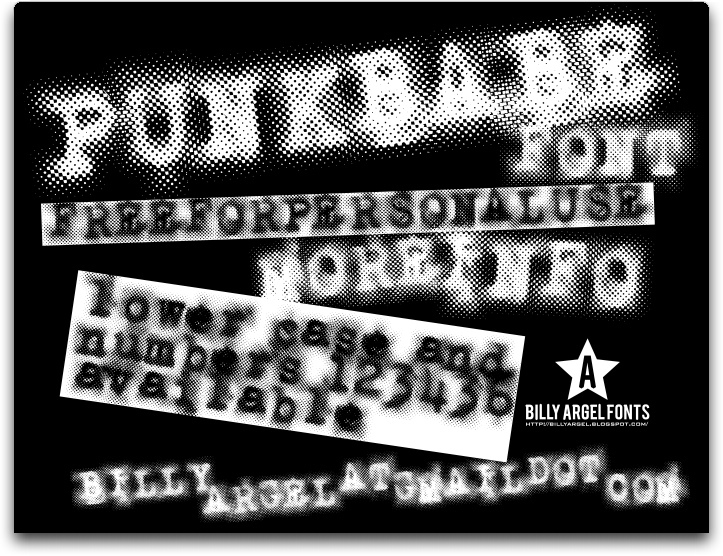
Punk Babe by Billy Argel is a free eroded display font. Its squat, heavy letters have a rough photocopied finish, with dense shapes breaking into clouds of halftone dots around the edges like ink dragged through a worn punk flyer.
Independent music labels and underground event promoters can use it for gig posters, album packaging, and merchandise, where the damaged print texture becomes part of the artwork. Its most convincing role is on a concert poster, where the blunt silhouettes and scattered dots echo cheap screen printing and copied paper ephemera.